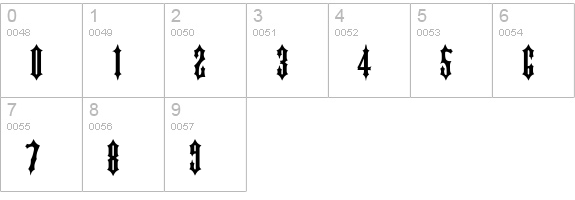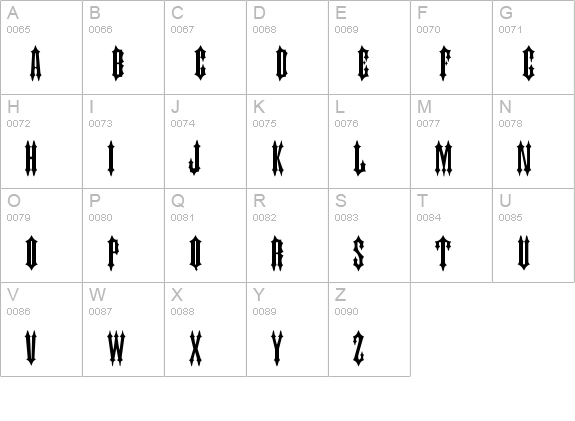
GothicType Font Details
Introducing GothicType font, a bold and striking typeface that will add a touch of mystery and elegance to your design projects. With its intricate details and gothic-inspired style, GothicType is perfect for creating eye-catching headlines, posters, and other creative pieces. The unique characters and intricate flourishes of this font will captivate your audience and leave a lasting impression. Best of all, GothicType is available for free download at FontsMarket.com. Now you can easily access this impressive font and elevate your designs without any cost. Don't miss out on the opportunity to enhance your projects with the distinctive charm of GothicType font. Download it today and let your creativity soar!